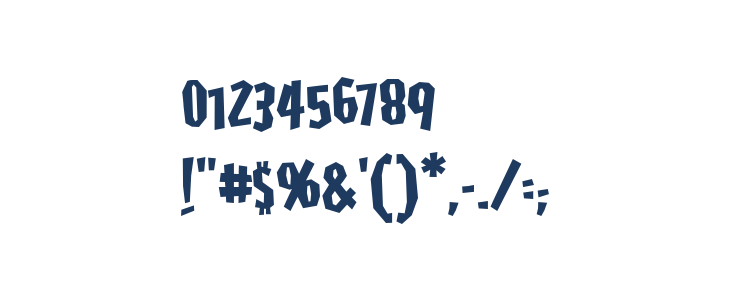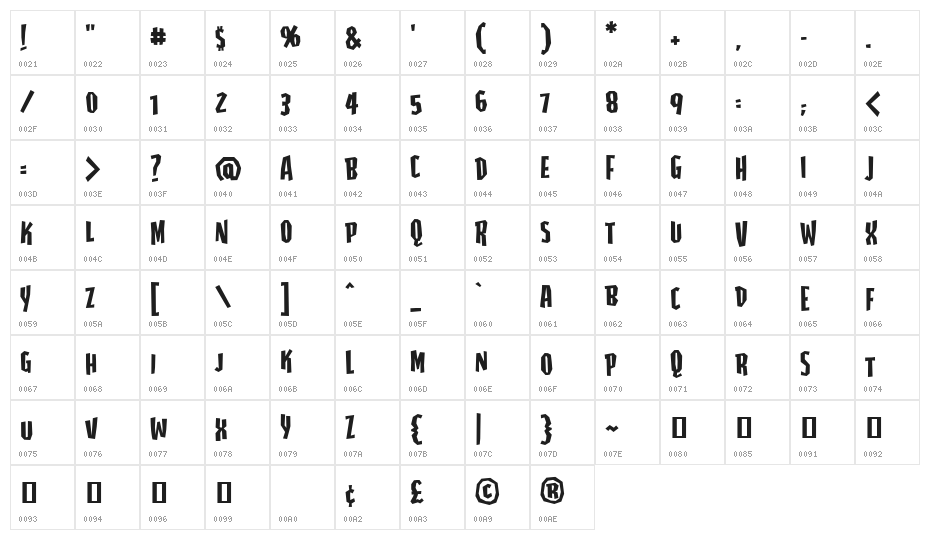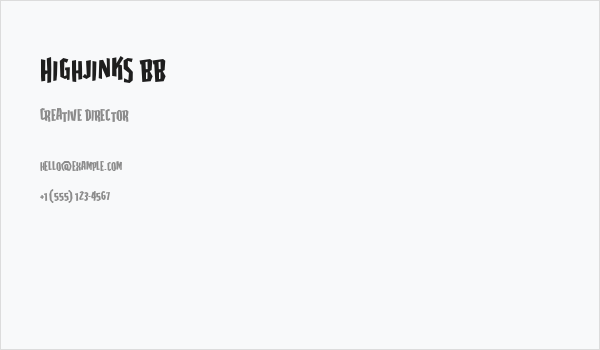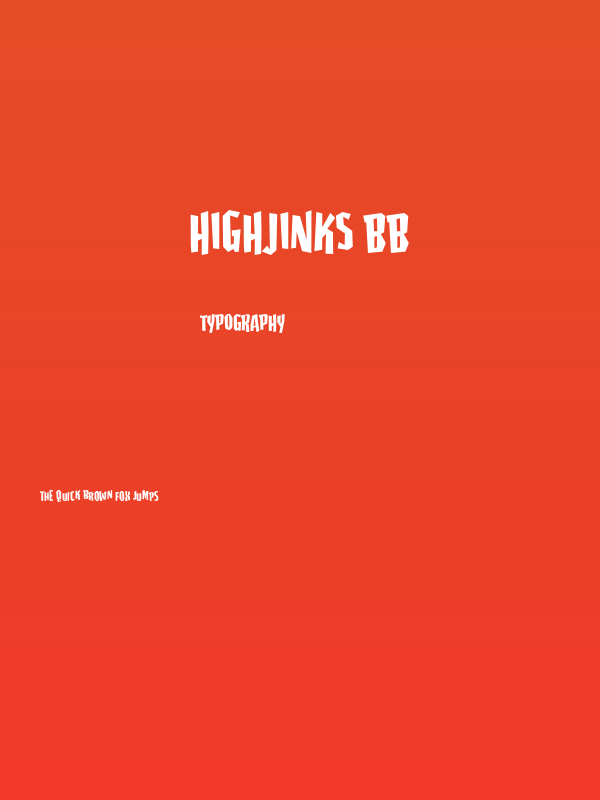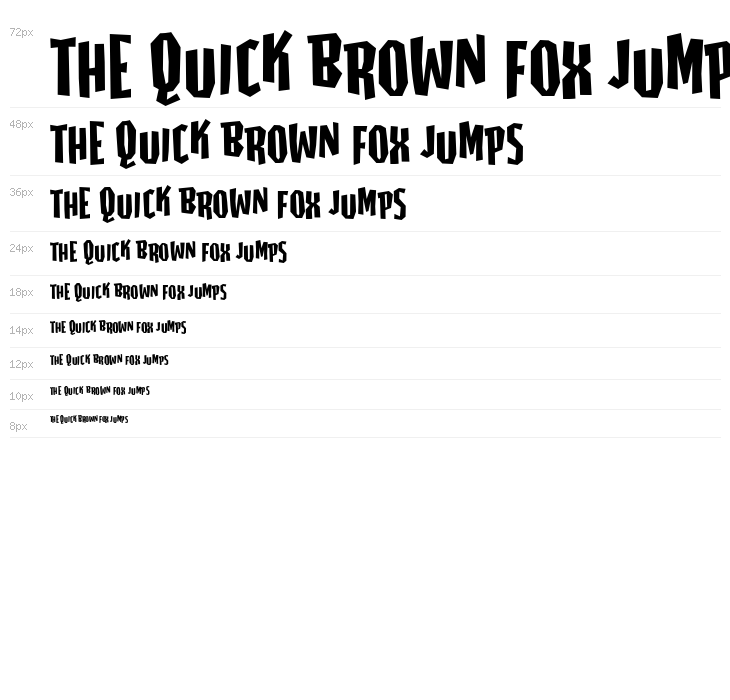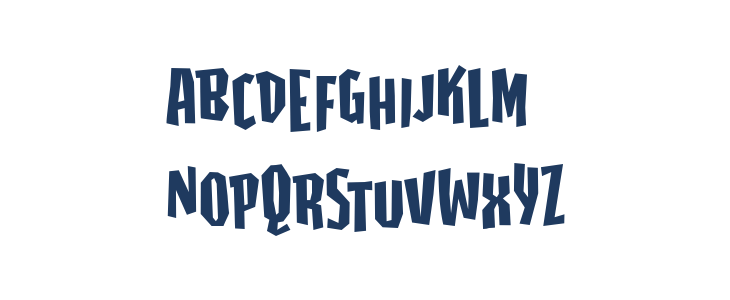
Highjinks BB Font
Highjinks BB Description
This font features a bold and playful design with exaggerated angles and a slightly irregular form, giving it a dynamic and energetic appearance. The uppercase letters are particularly striking, with sharp edges and a sense of movement that suggests a lively, almost comic-like style. The lowercase letters maintain this playful aesthetic, ensuring consistency across the typeface. Numbers and special characters are equally bold, making them stand out in any design. The overall look is both fun and attention-grabbing, making it suitable for projects that require a strong visual impact.
| Overall Style | Playful, Energetic, Comic-like |
| Use Case | Headlines, Posters, Branding |
| Proposed Projects | Ideal for comic books, children's books, playful branding, and eye-catching posters. |